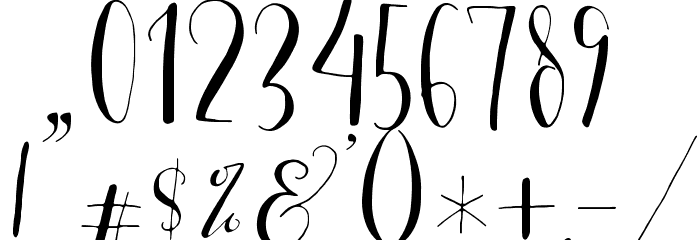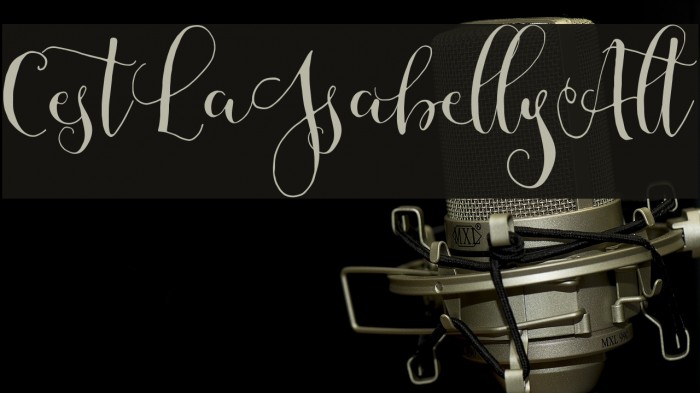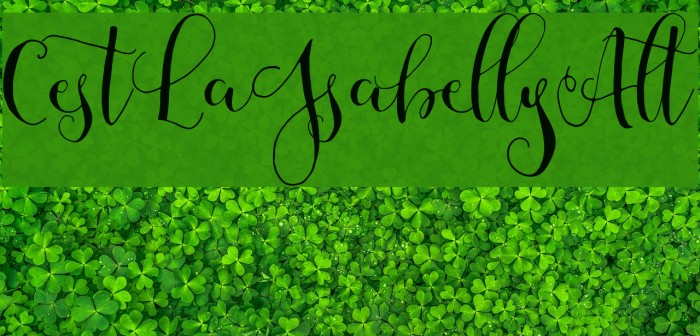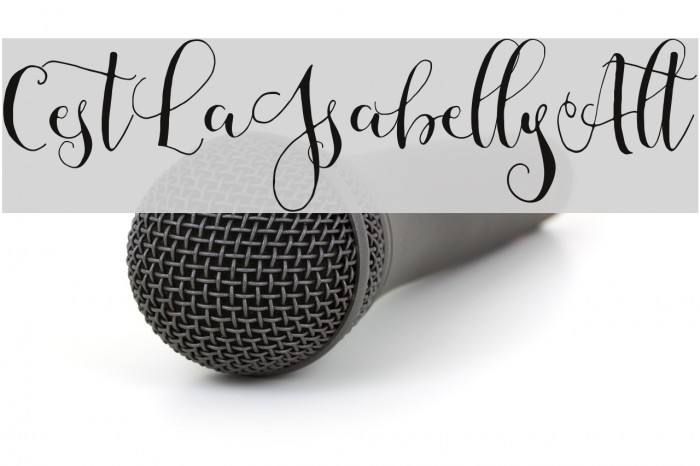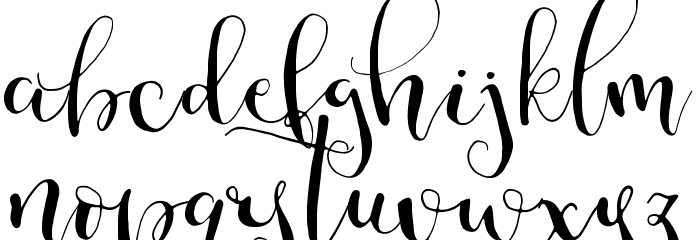
CestLaIsabellyAlt Font
CestLaIsabellyAlt Description
This font features an elegant and flowing script style, characterized by its intricate swashes and loops. The uppercase letters are particularly ornate, with extended flourishes that add a sense of sophistication and grace. The lowercase letters maintain a consistent flow, with some characters extending below the baseline, adding to the font's dynamic appearance. The numbers are tall and slender, complementing the overall aesthetic. Special characters are designed with the same attention to detail, ensuring a cohesive look across all glyphs. This font is ideal for projects that require a touch of elegance and creativity.
An elegant script font with intricate swashes and flowing lines from Script fonts.
- Proposed Projects: Ideal for wedding invitations, branding, greeting cards, and elegant logos.
- Use Case: Logos, Invitations, Decorative text